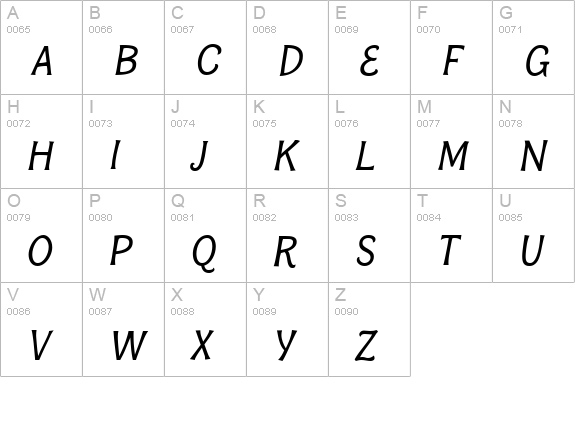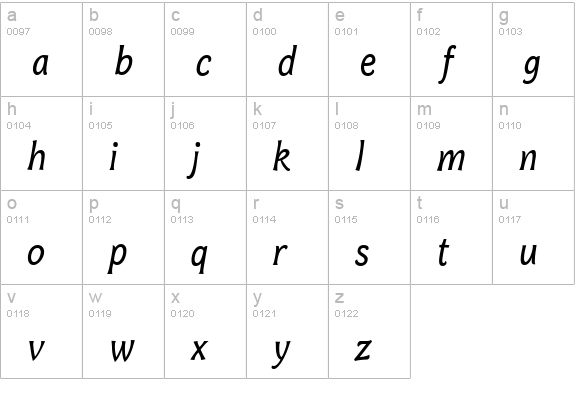
Bonobo Italic Font Details
Bonobo Italic is a distinctive, italic variant in the Bonobo typeface family \xE2\x80\x94 well suited to design and typography projects.
Bonobo Italic is a sleek and modern font that exudes elegance and sophistication. Its stylish italicized design adds a touch of flair to any project, making it perfect for a wide range of design applications. With its clean lines and graceful curves, Bonobo Italic is both eye-catching and easy to read, making it ideal for both print and digital designs. What sets Bonobo Italic apart is that it is not only a stunning typeface, but it is also free for all to use. That's right, this beautiful font is freely available to download at FontsMarket.com, allowing designers and creatives to access this premium font without any cost. Whether you're working on a branding project, a website design, or any other creative endeavor, Bonobo Italic is sure to elevate your work with its unique charm and versatility. Don't miss out on the opportunity to enhance your design projects with the sophisticated and stylish Bonobo Italic font - download it for free today at FontsMarket.com and see the difference it can make in your designs!